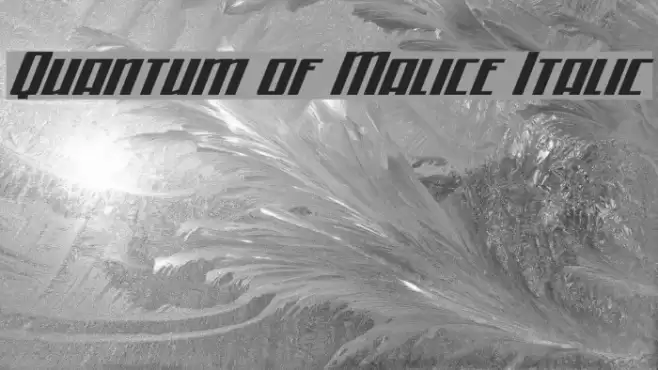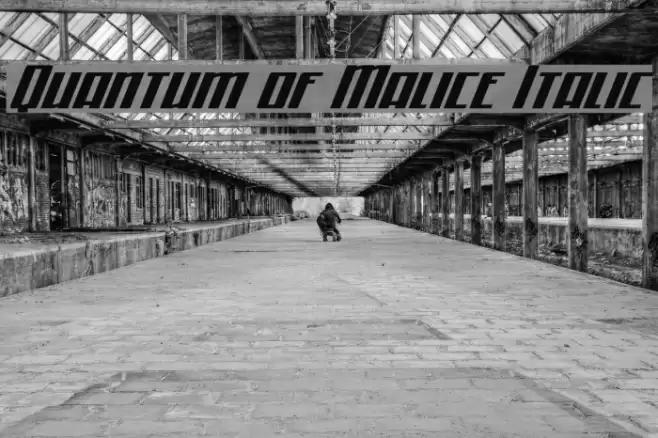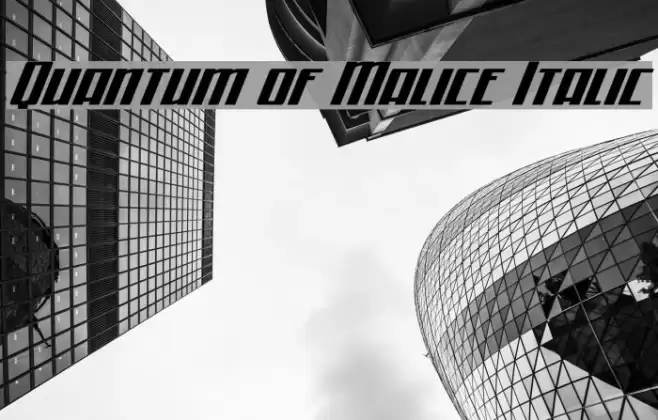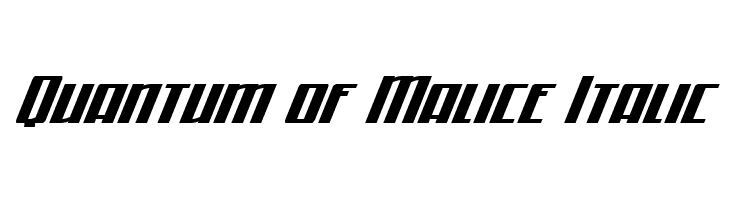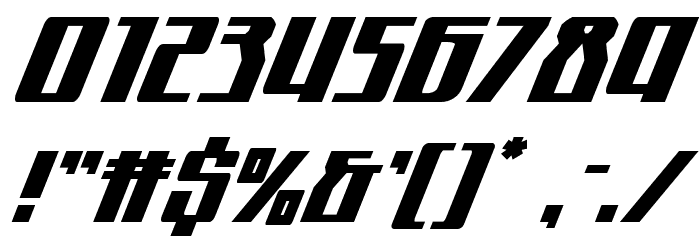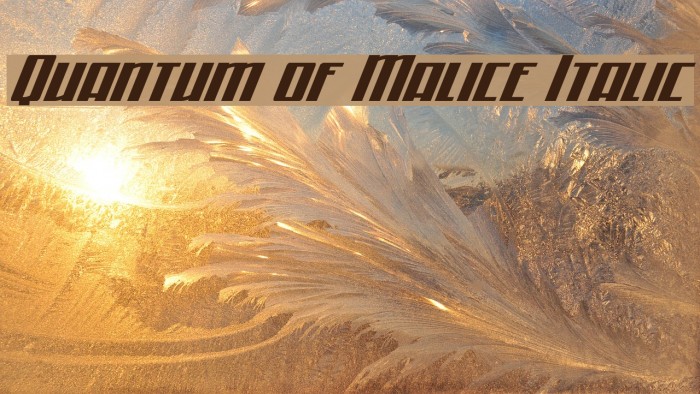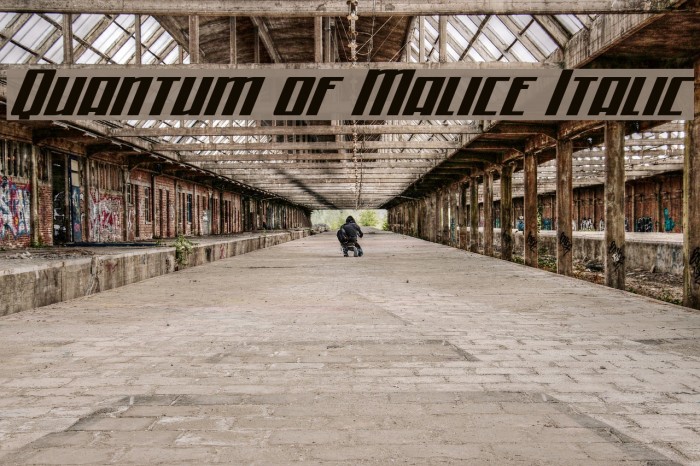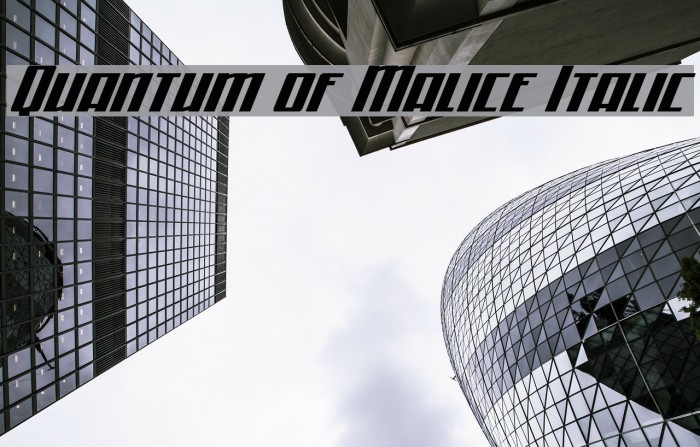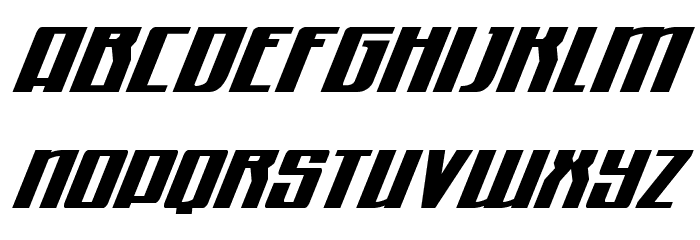
Quantum of Malice Italic Font
Quantum of Malice Italic Description
This font features a bold, italicized style with sharp, angular edges and a distinct slant, giving it a dynamic and aggressive appearance. The uppercase and lowercase letters maintain a consistent width, while the numbers and special characters follow the same angular design. The font's strong geometric shapes and uniformity make it stand out, ideal for creating a striking visual impact. Its boldness is complemented by a medium contrast in stroke thickness, ensuring readability while maintaining its edgy aesthetic.
A bold, italicized font with sharp, angular edges and a dynamic slant from Uncategorized fonts.
- Proposed Projects: Ideal for sports branding, action movie posters, video game titles, and dynamic logo designs.